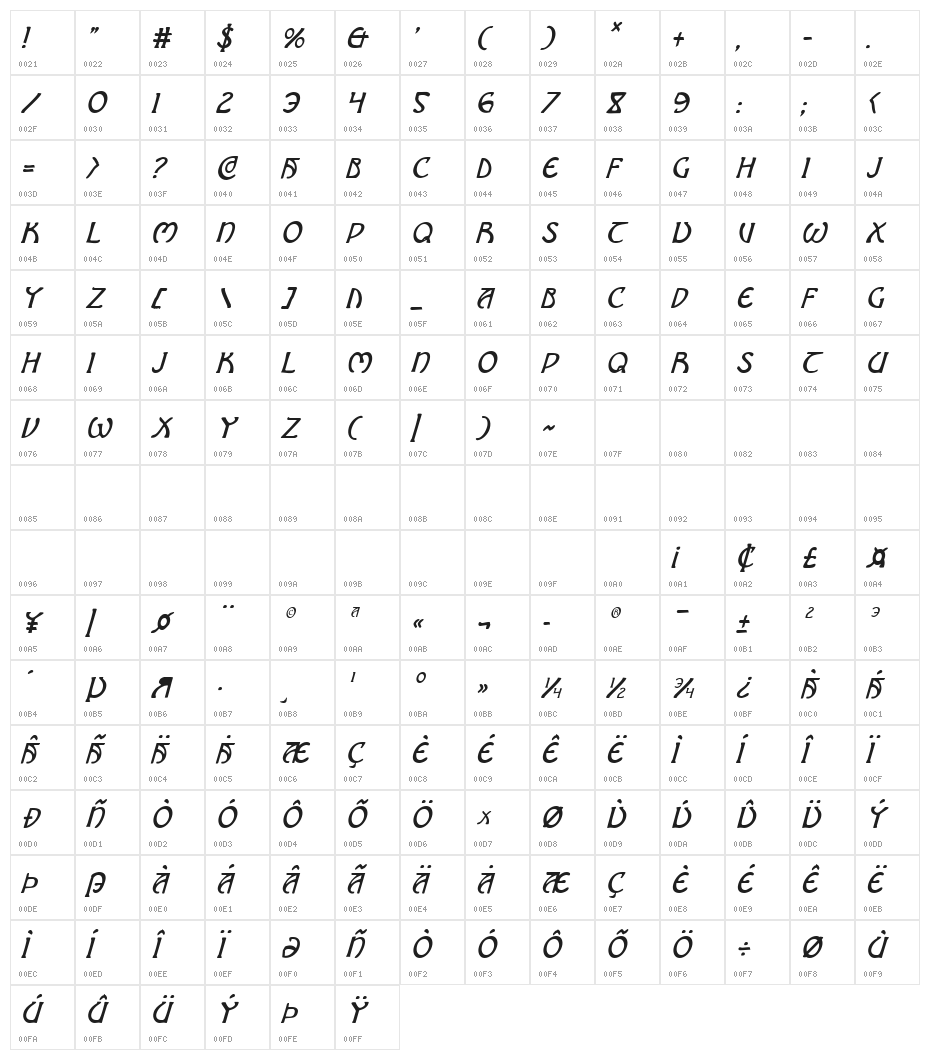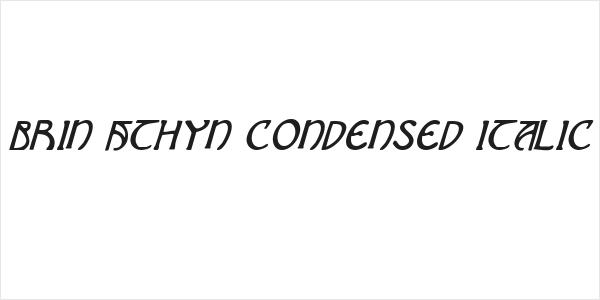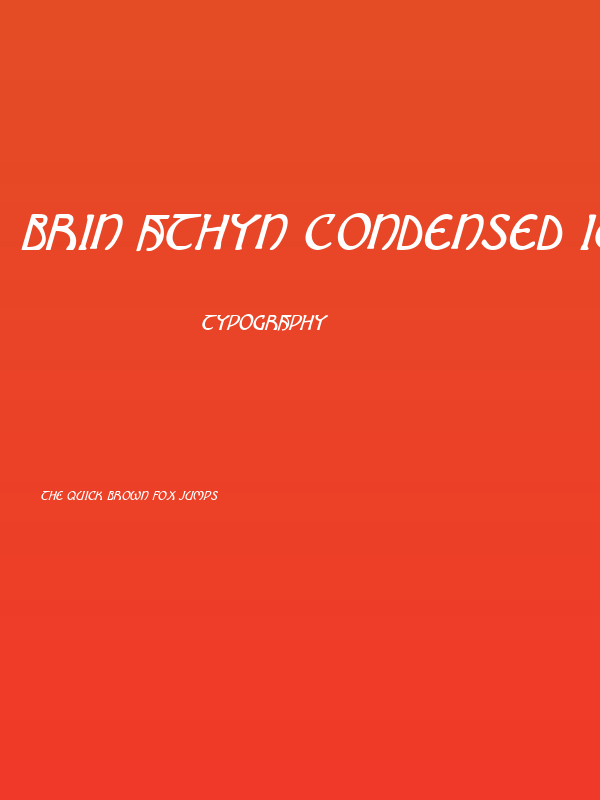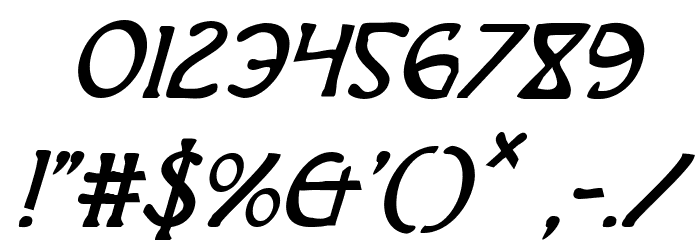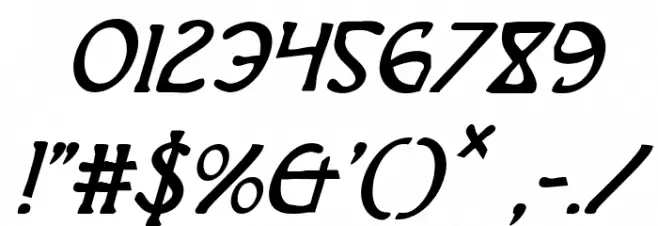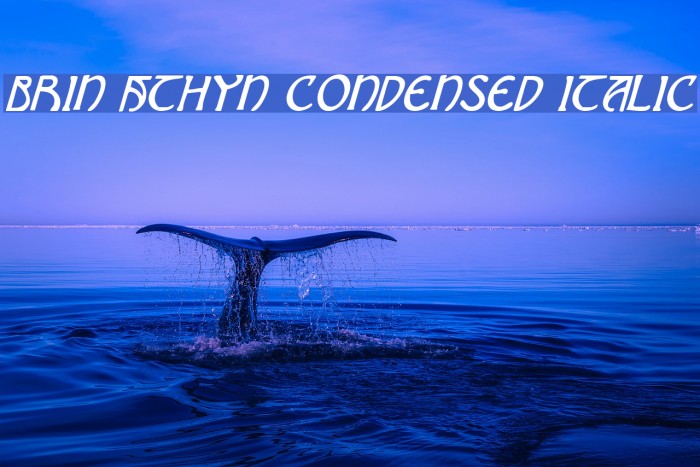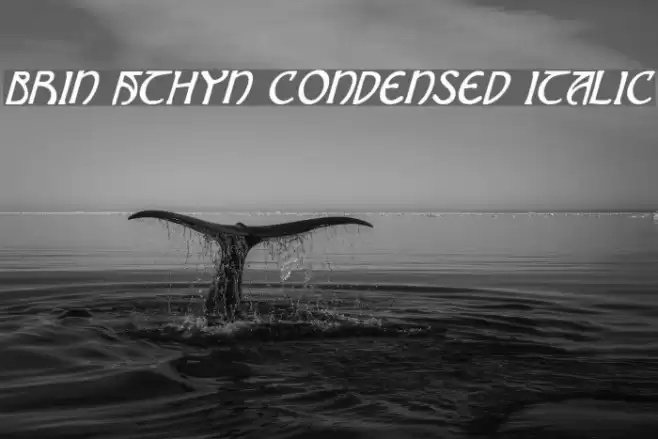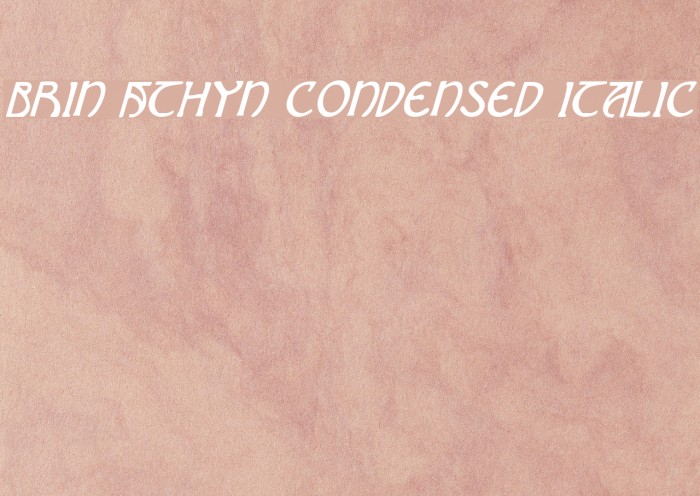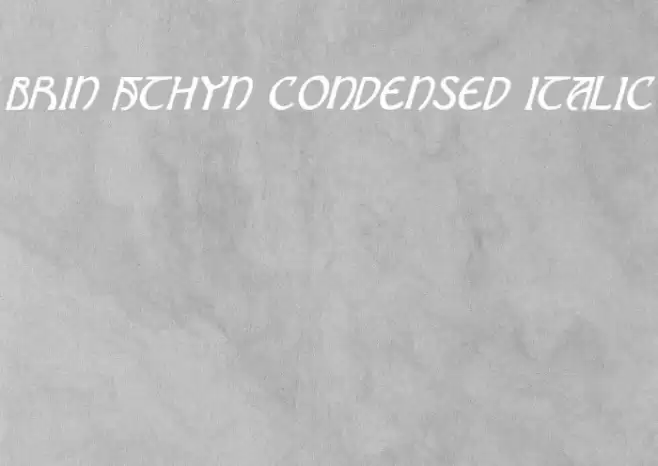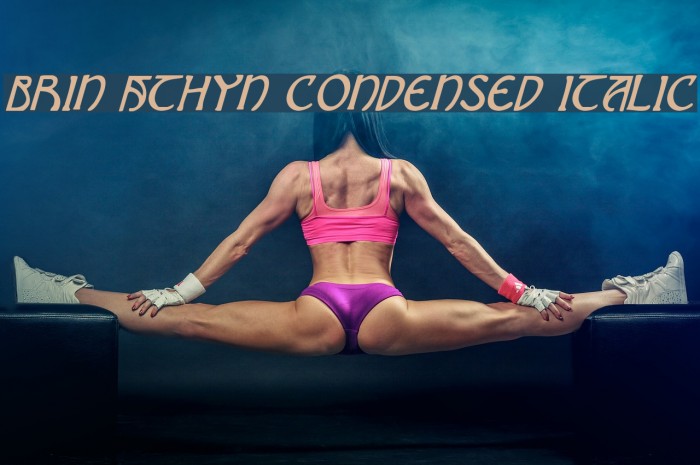
Brin Athyn Condensed Italic Font
Brin Athyn Condensed Italic Description
This font features a distinct italic style with a condensed width, giving it a sleek and dynamic appearance. The characters are elegantly slanted, creating a sense of motion and fluidity. The strokes are moderately thick, providing a balanced contrast that enhances readability while maintaining a stylish look. The uppercase and lowercase letters are well-proportioned, with unique curves and angles that add a touch of sophistication. The numerals and special characters are designed to complement the overall aesthetic, making this font versatile for various design applications.
| Use Case | Headlines, Logos, Editorial design |
| Proposed Projects | Ideal for branding, editorial design, and creative projects that require a modern and stylish touch. |